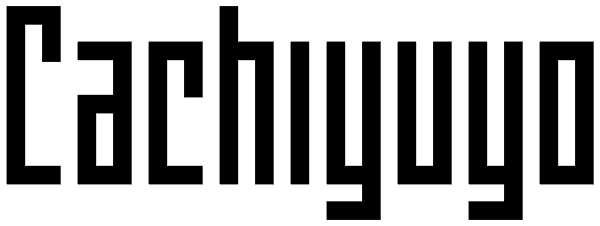
Cachiyuyo
Cachiyuyo is a bitmap font designed for screen titles and to be printed, has a large x height, is very tight and orthogonal. Cachiyuyo is meant for short texts and simple layouts. Is optimized for screen at 8px, 16px, 32px etc.